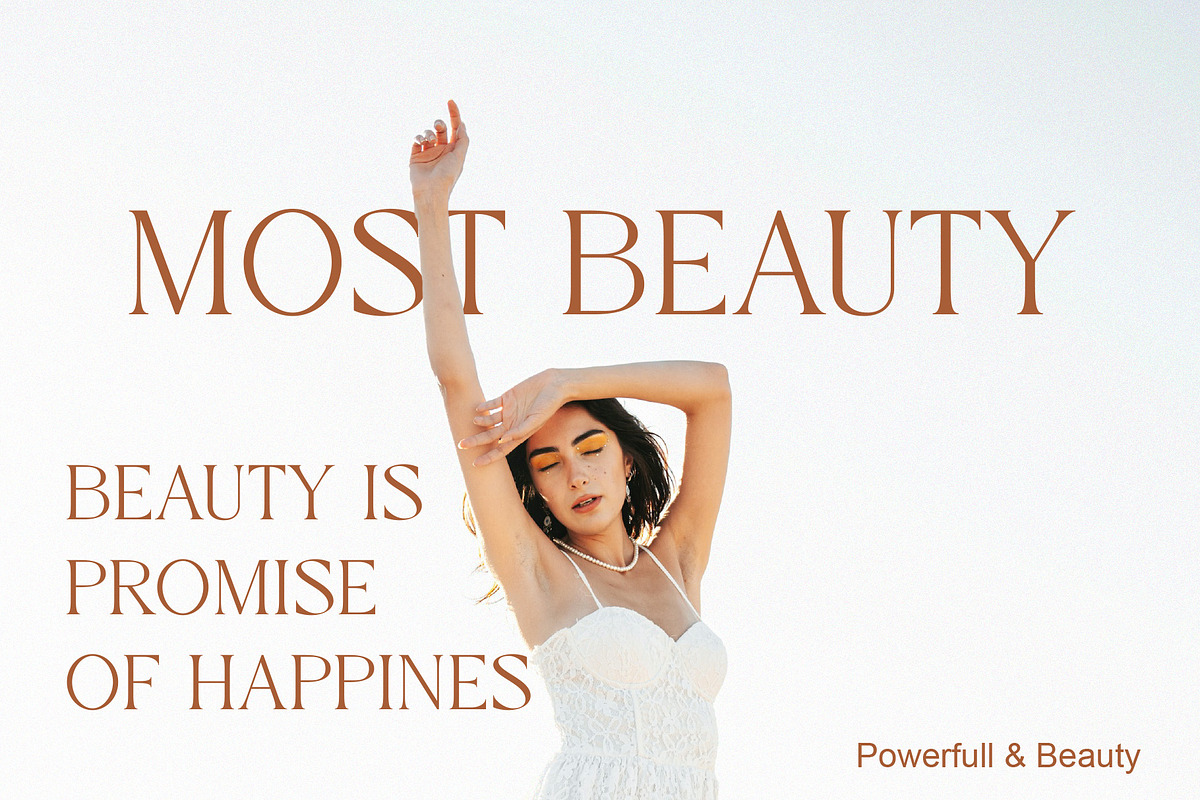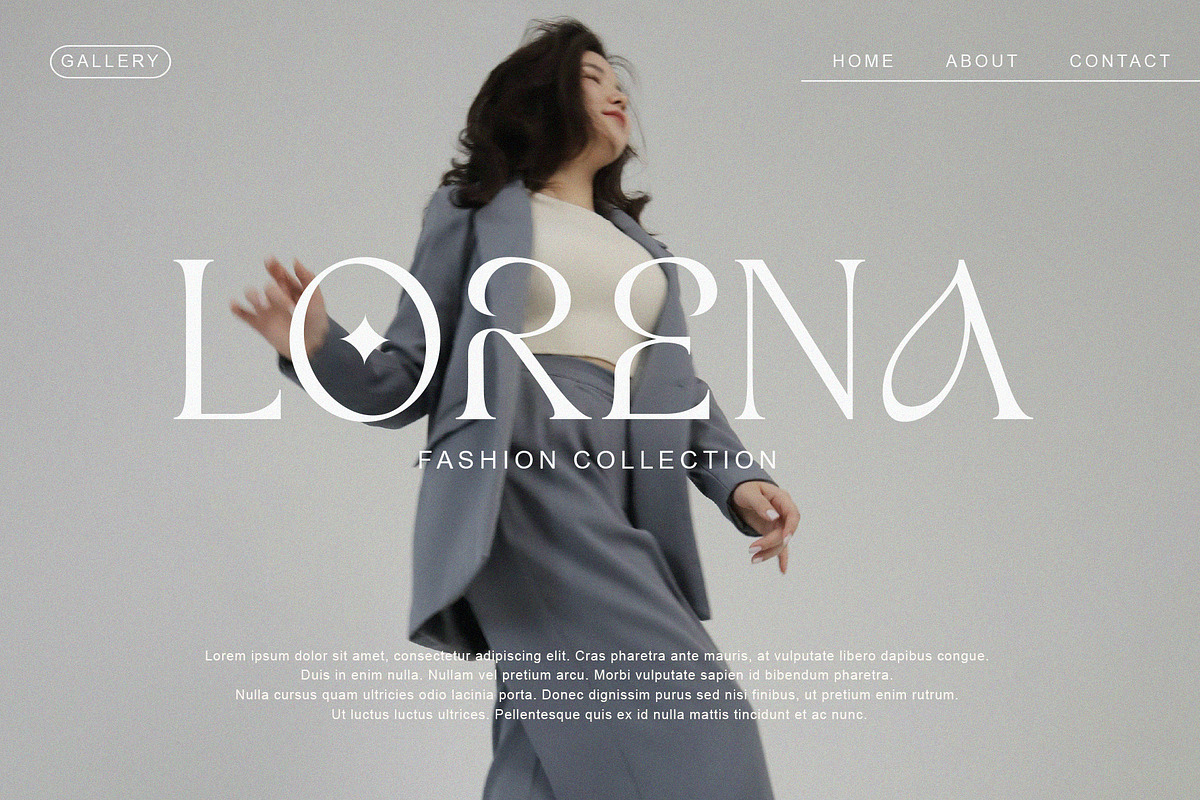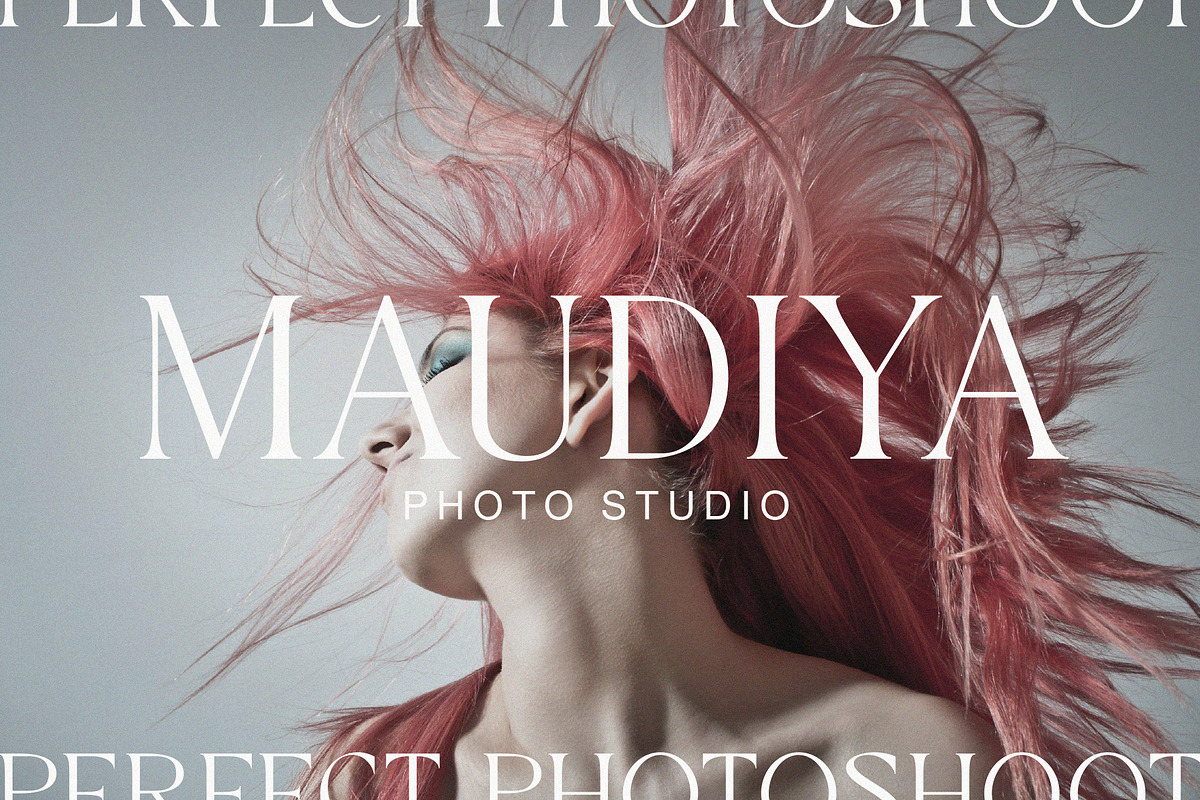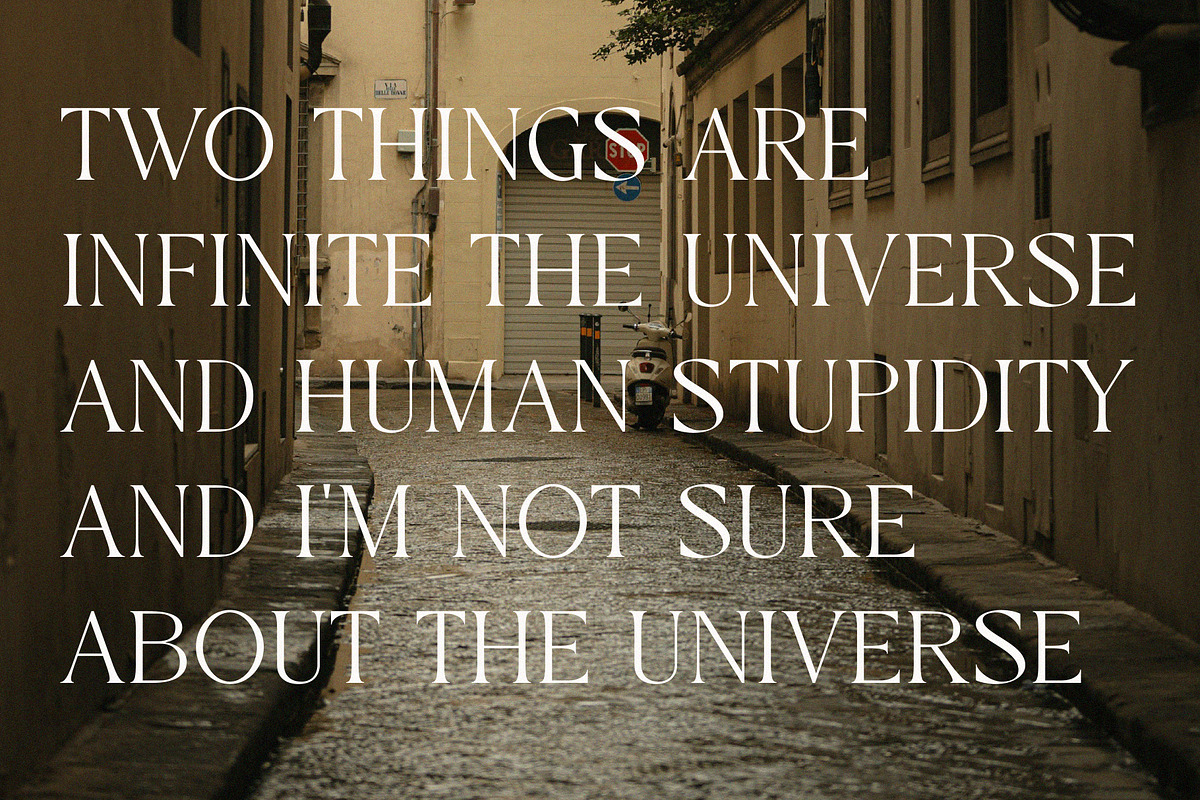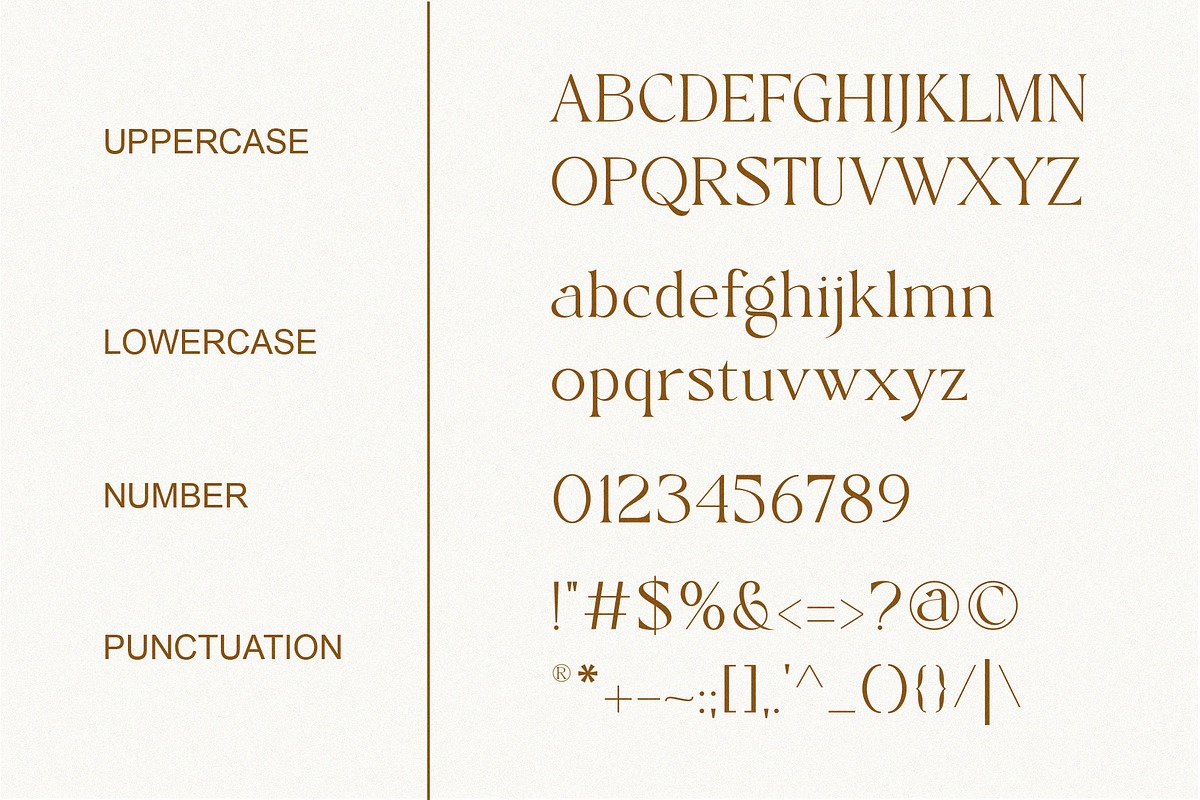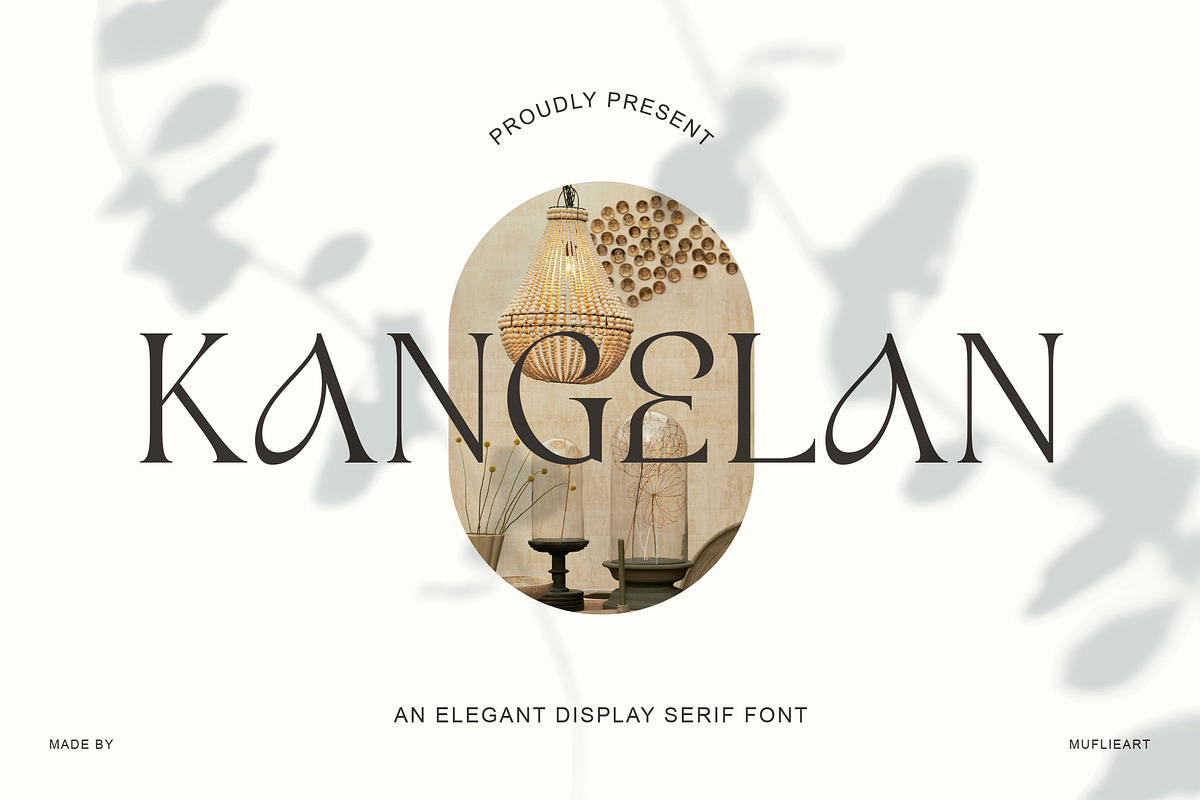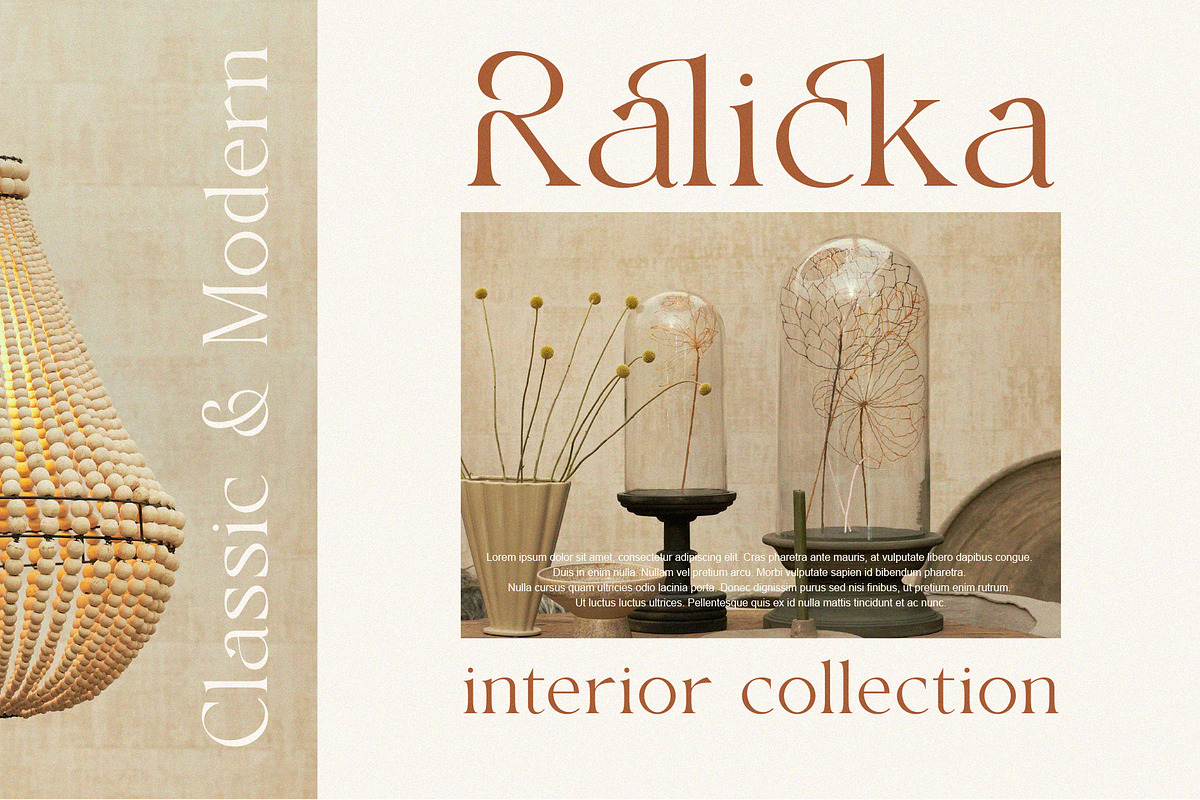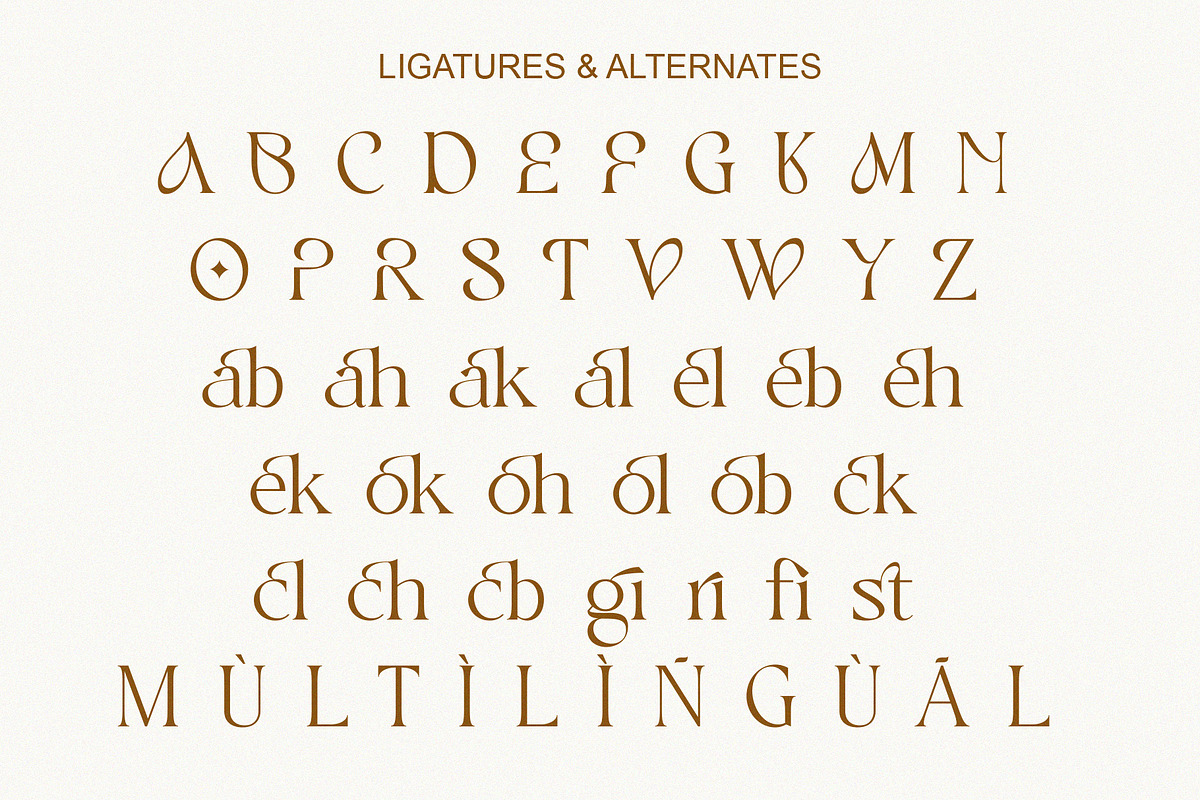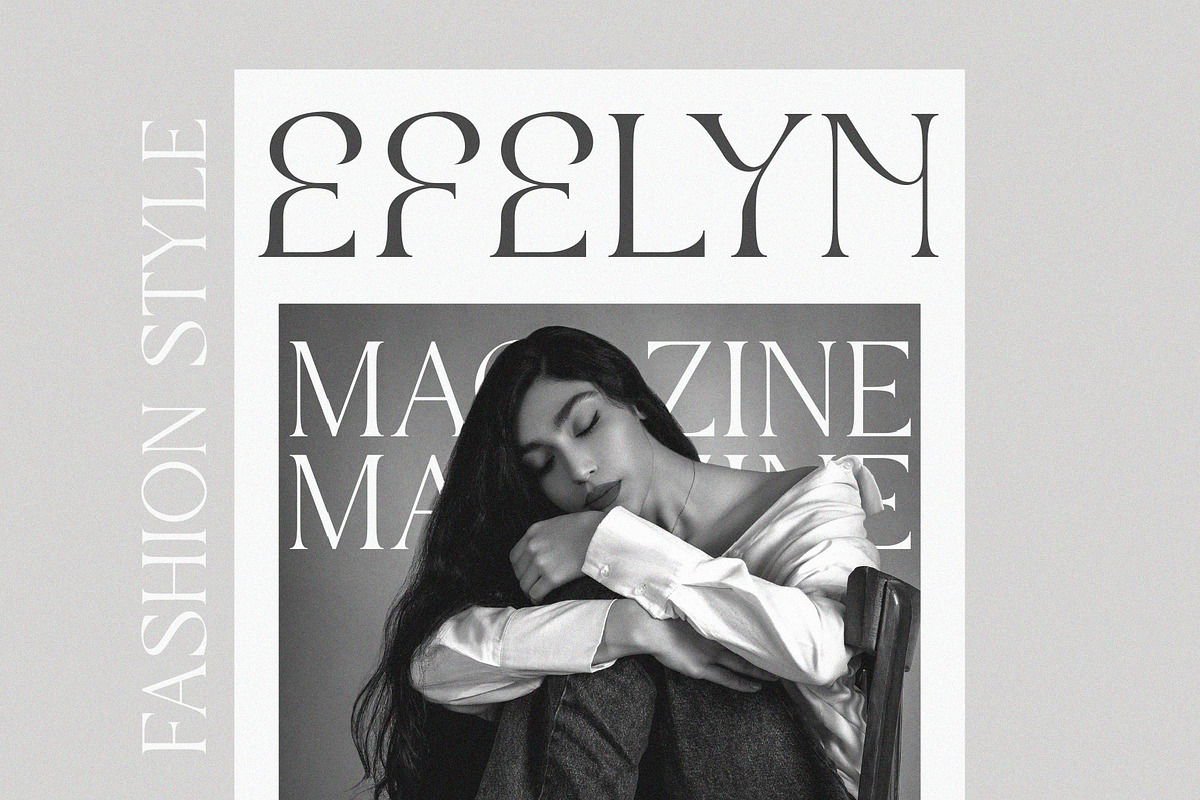
Kangelan
Introducing Kangelan Elegant display serif. With its modern and minimalist appearance, Kangelan brings a luxurious, classy and clean style to your projects such as websites, modern logos, branding identities, social media quotes, wedding stationery, magazines and various other needs!
Kangelan features unique and classy capital letters A to Z and is equipped with unique letter alternatives and ligatures so that Kangelan becomes a beautiful font that can be adapted to various projects and jobs that you want.